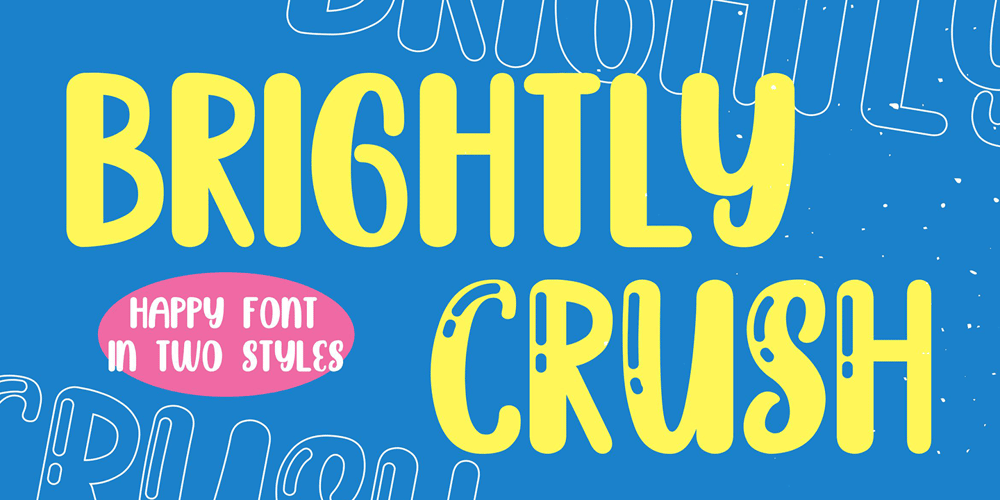
Brightly Crush
Brightly Crush font
Brightly Crush Font Family was designed by Virgiawan Listanto and published by Stringlabs Creative Studio. Brightly Crush contains 2 styles and family package options. Brightly Crush embodies fun, quirkiness and authenticity. This enchanting display font will turn any creative idea into a true standout. Get creative with its childlike playfulness, and use it to brighten up any kids and school project!